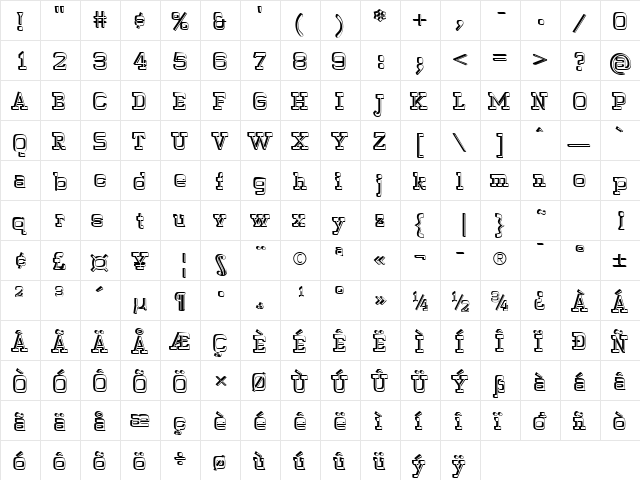
WyomingPastadShadLeft Regular Font Preview
WyomingPastadShadLeft Regular
WyomingPastadShadLeft Regular Font Details
Design Context for WyomingPastadShadLeft Typeface
WyomingPastadShadLeft is a composed and adaptable typeface that performs quietly and consistently across a wide range of design contexts.